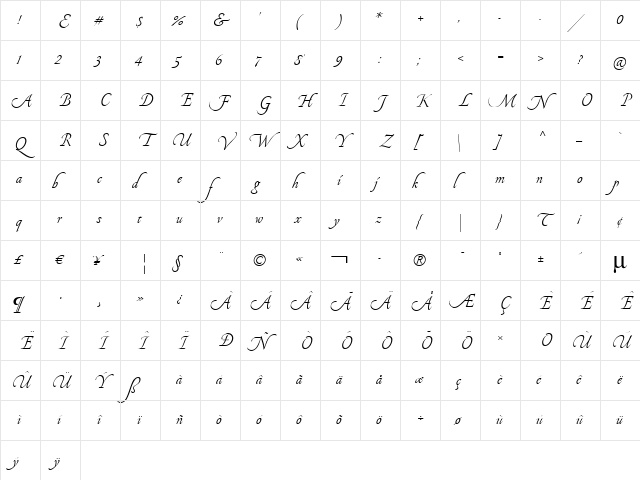
Pirouette LT Std Separate 1 Regular
| Designer | Ryuichi Tateno |
Design Context for Pirouette LT Std Separate 1 Typeface
Pirouette LT Std Separate 1 takes a measured approach to typography — its balanced proportions and neutral character make it a reliable workhorse for both digital and print work. Its slender proportions lend an understated elegance to any composition.